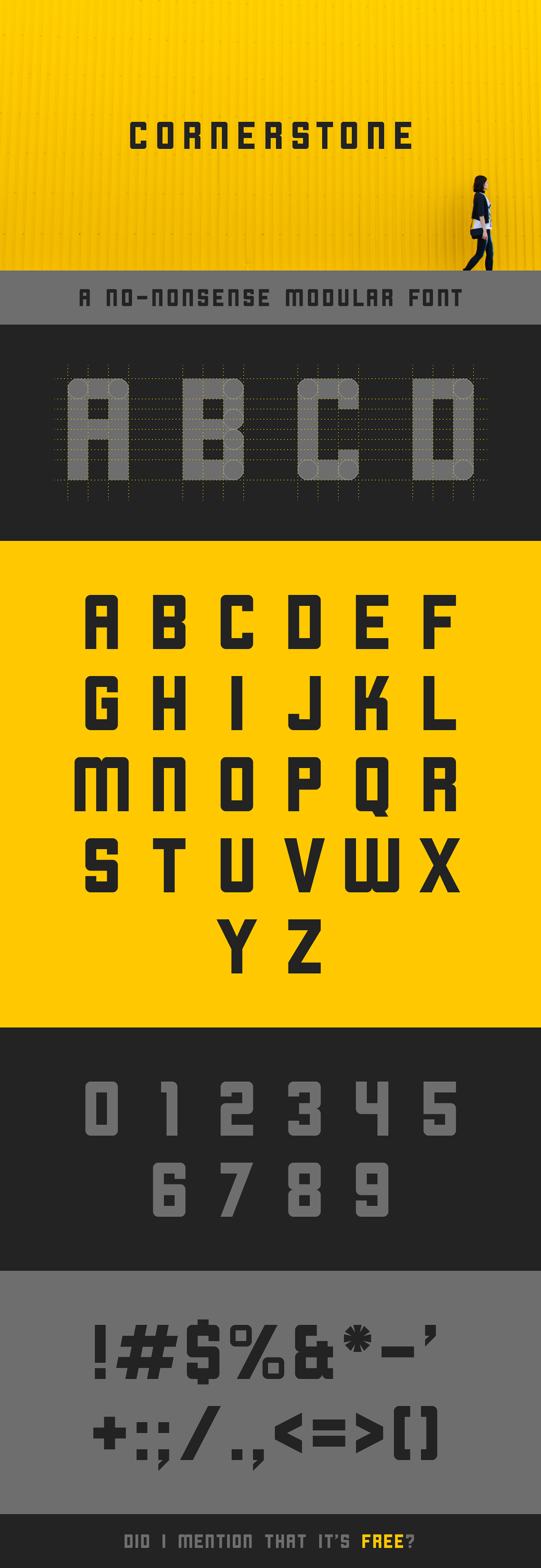
This fantastic no-nonsense modular font was designed by Zac Freeland. Download Cornerstone for free! This industrial yet vintage font may be used for free in both personal and commercial projects.